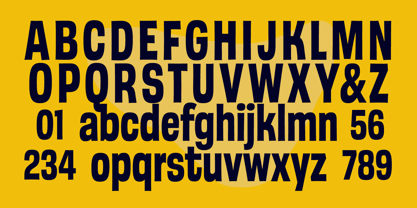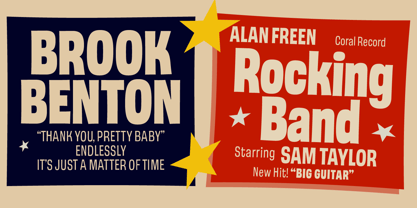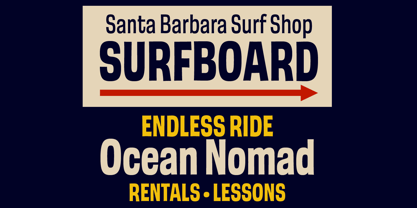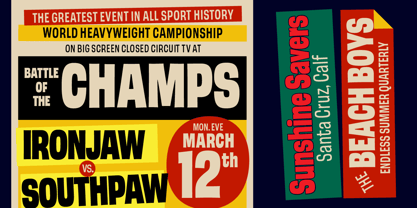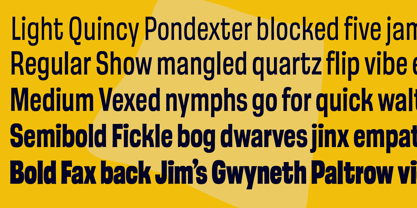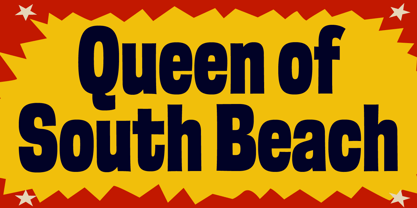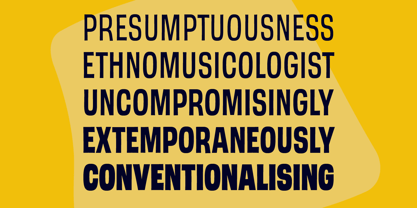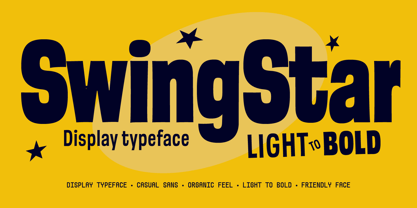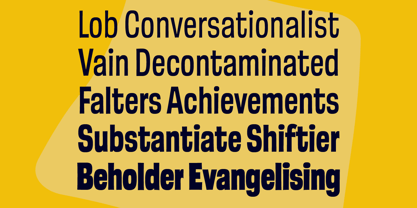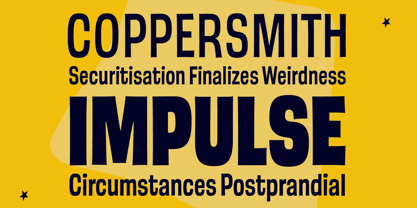
GW Swingstar
by Goodwheel Studio
The GW Swingstar Font Family was designed by Ilham Herry and published by Goodwheel Studio. GW Swingstar contains 6 styles and family package options. More about this family
A dynamic display sans serif inspired by the spirit of 1960s California—where surf culture, sun-faded posters, and carefree coastal living shaped a bold visual identity. Blending clean modern structure with subtle retro character, it carries a natural sense of rhythm and movement, echoing rolling waves and endless summer days. Designed for impact, this typeface comes in five weights from Light to Bold, offering versatility from airy compositions to strong, confident headlines. Perfect for posters, branding, packaging, and apparel, it brings a warm, nostalgic West Coast energy into contemporary design with effortless style and timeless attitude that feels alive.
Designers: Ilham Herry
Foundry: Goodwheel Studio